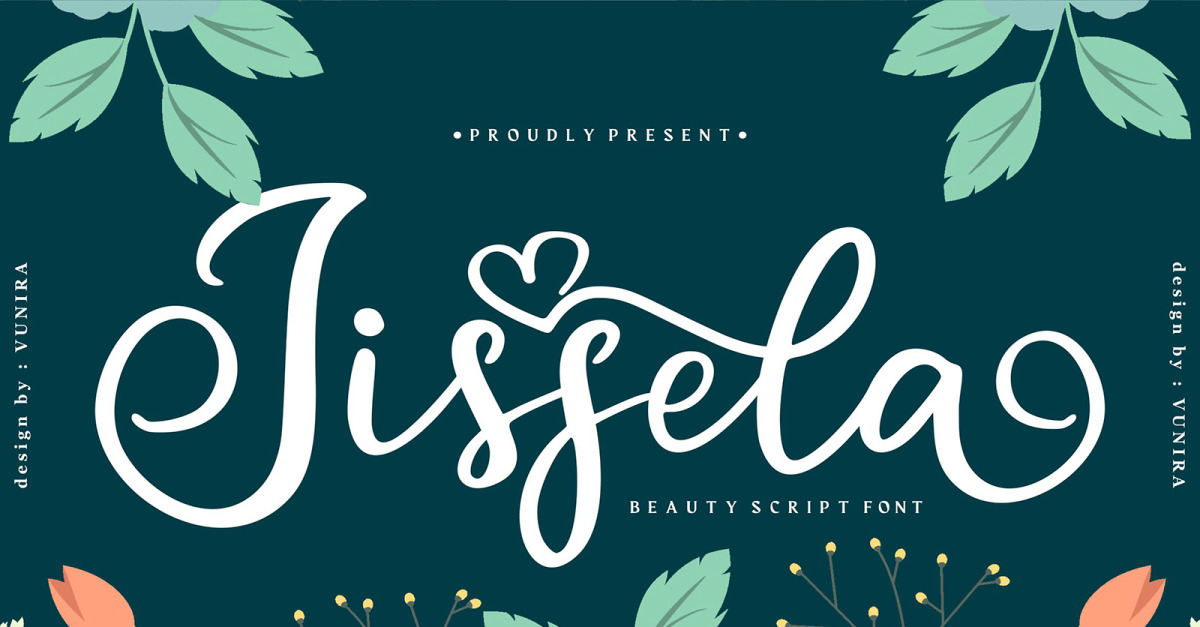
Jissela | Beauty Cursive Font
**Jissela | Beauty Script Font** with a calligraphy style, So beautiful on invitation like greeting cards, branding materials, business cards, quotes, posters, and more!